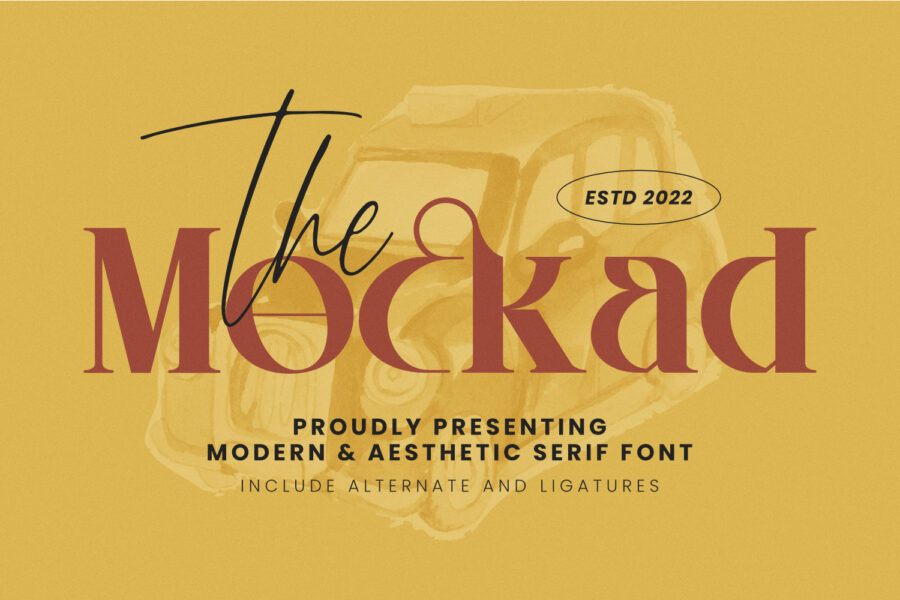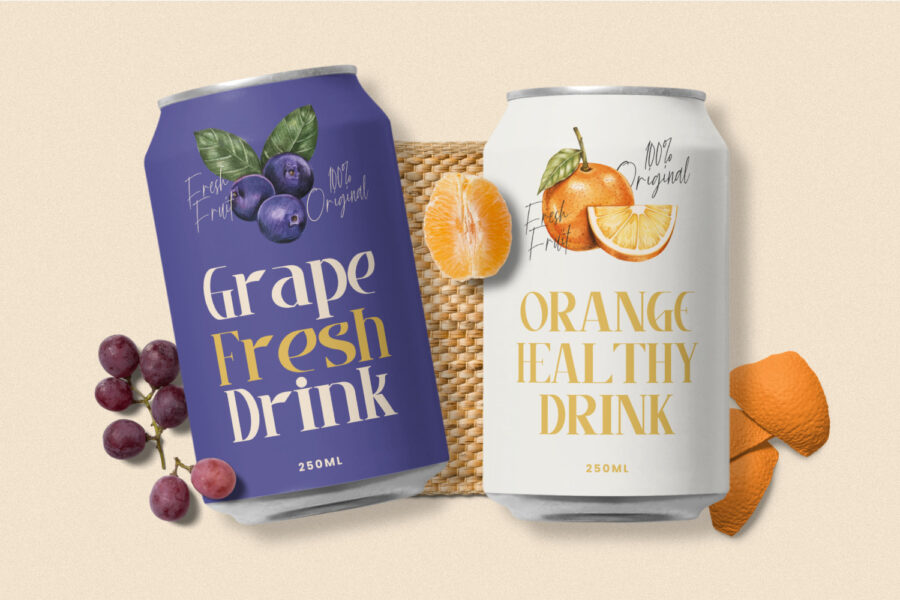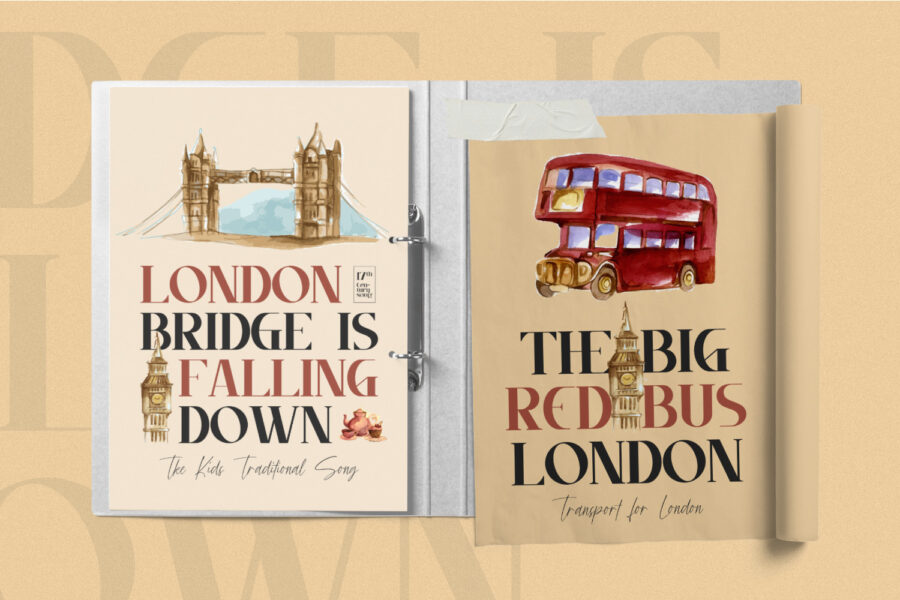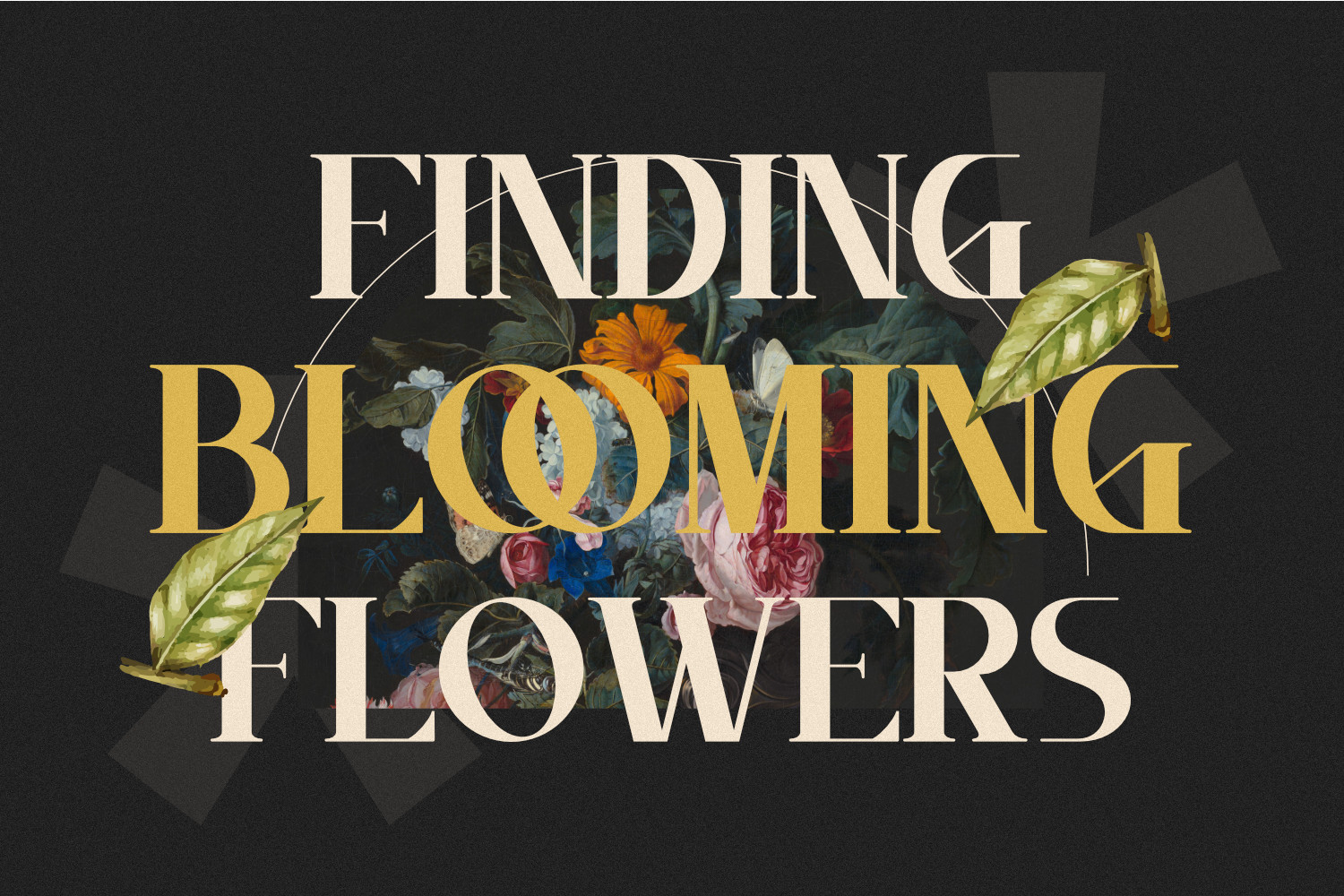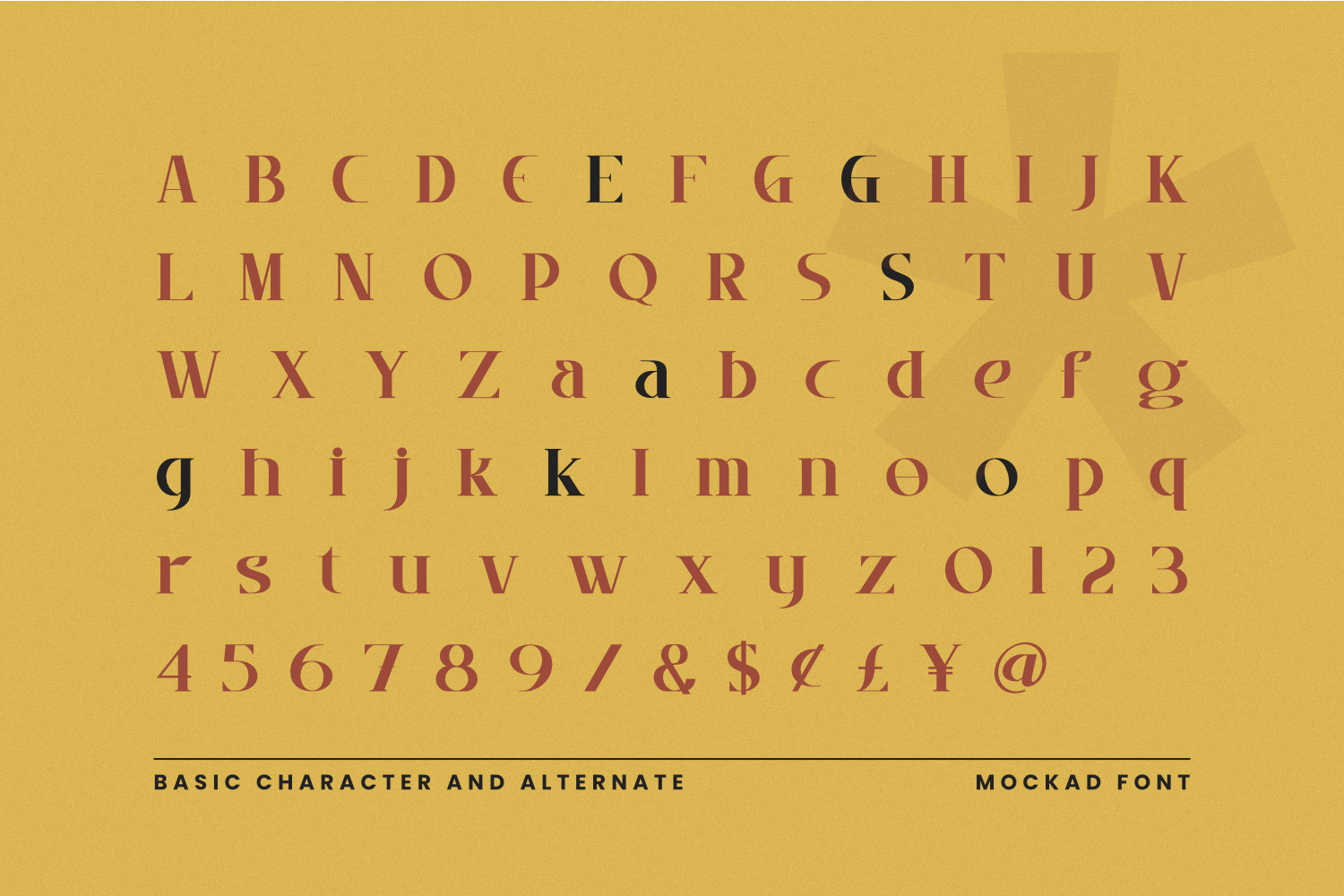
Mockad is a modern serif display font that combines classic elegance with a fresh, contemporary twist. It features stylish contrasts between thick and thin strokes, high vertical pressure, and gentle curves, making it ideal for branding, packaging, editorial headlines, and high-end artistic logo designs. The font’s luxurious aesthetic is enhanced by thoughtful alternates and ligatures, giving designers the flexibility to create distinctive and expressive compositions.
From vintage-inspired posters to modern packaging designs, Mockad delivers a timeless charm that’s perfect for both minimalist and ornate layouts. The font supports multilingual characters and includes a wide range of alternates and ligatures, making it highly versatile and suitable for international applications. Mockad is the perfect typeface for creators looking for a serif font with bold personality and sophisticated style.
Mockad